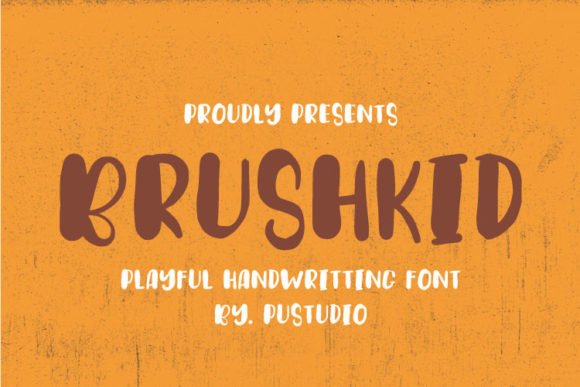
Introduction to BrushKid Font
BrushKid is a cute and friendly display font.
It embodies playfulness and authenticity and is the perfect choice for any children activity or school project .